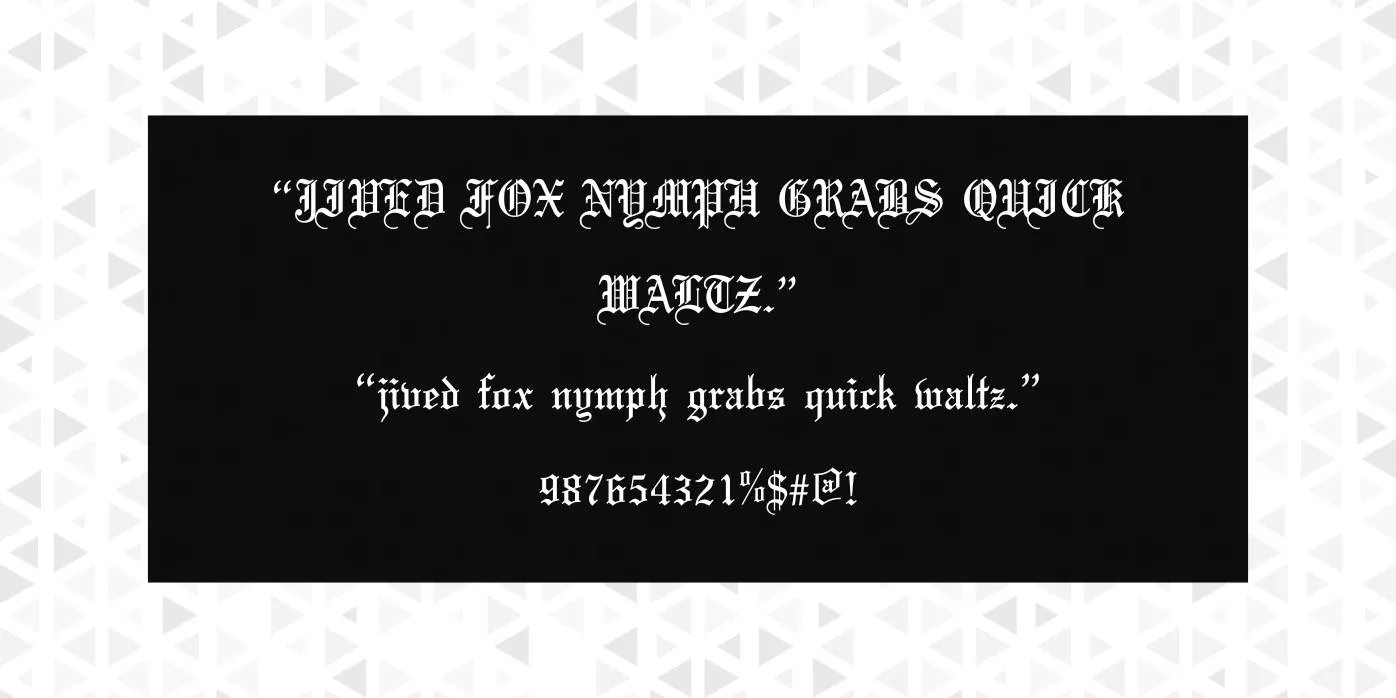
Olde English Font is a Gothic font created by Dieter Steffmann, this typeface is available in many formats such as TTF and OTF file formats, it is a very famous font due to its old school, Blackletter, and traditional calligraphic look.
View and Advanced Uses of Olde English Font
This traditional typeface can give an old-school and blackletter feel to your design projects. This font can be useful for the making of titles, invitation cards, business layouts, documents, assignments, slips, general reports, and a lot more.
Olde English Font
This typeface can be applied in both digital and print media, social channels, thumbnails, ads, tags, tickets, promotional videos, advertising, and many other promotional materials. This font is the best recommendation for your graphic and display design projects that can add a touch of attractiveness and excellence.
What type of font is Olde English Font?
This font is a script font created by Dieter Steffmann, it is a very famous font due to its old school, Blackletter, and traditional calligraphic look.
What font is best for Old English Font?